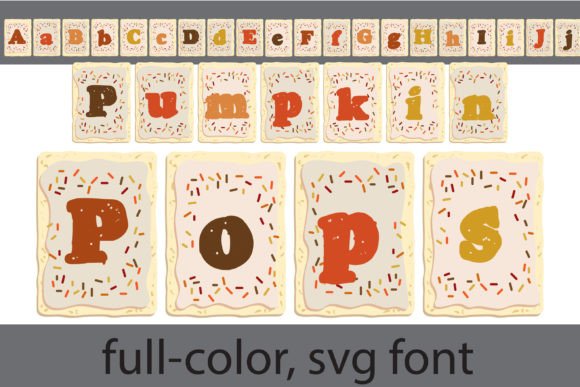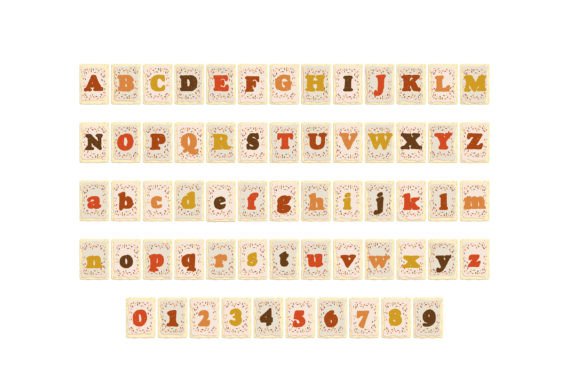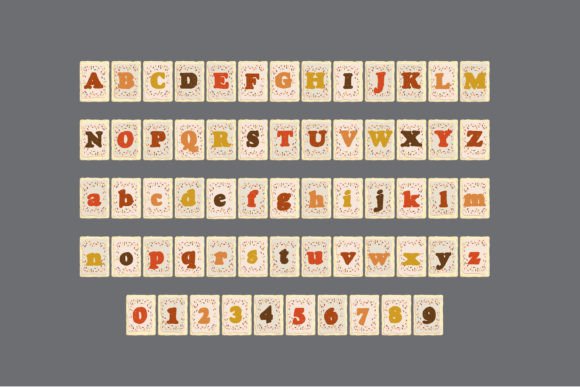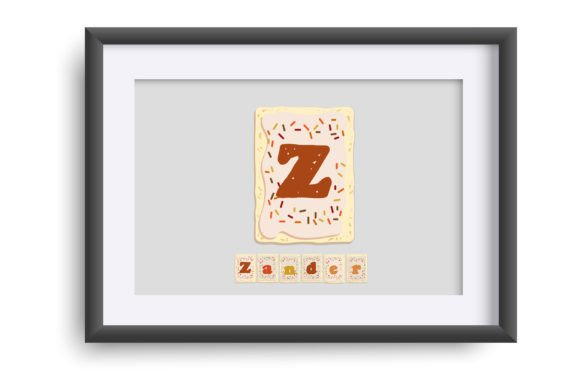
Pumpkin Pops Font
About the Pumpkin Pops Font
Discover the charm of Pumpkin Pops Font. This font is a perfect blend of modern aesthetics and classic appeal. This full-color font features a toaster pastry font in a pumpkin color palette. There is an alt case with additional colors you can access through your system’s character map. This font works best for titles, displays, posters and more. Please note color fonts will show as black in non compatible programs. This font type is compatible with Silhouette Studio.